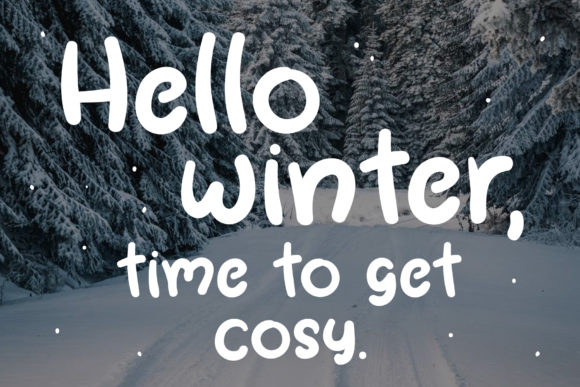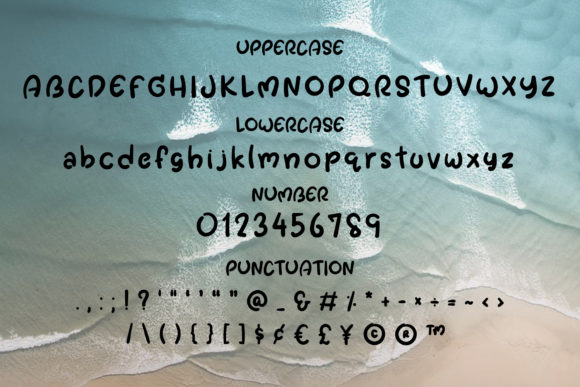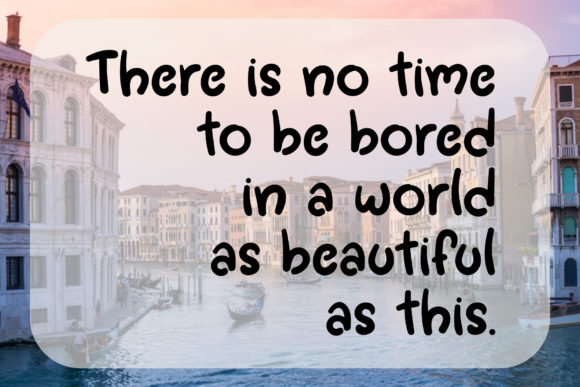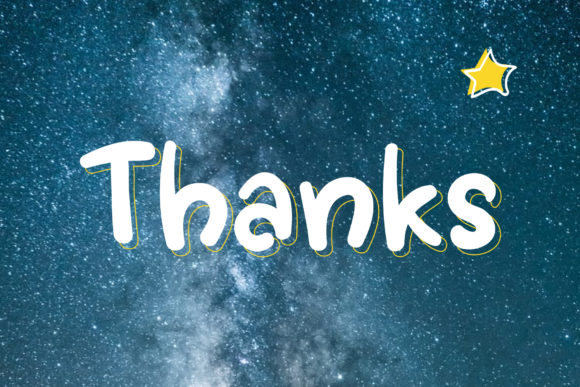
Introducing Briefcase Font: The Handwritten Charm for Your DIY Projects
Are you a designer, crafter, or DIY enthusiast looking for a unique and authentic font to elevate your projects? Look no further than Briefcase Font, a stunning handwritten font that is sure to capture hearts. This gorgeous font is the result of a beautiful pairing of a brush pen and pencil, giving it an endearing and genuine feel that will make your projects stand out.
The Story Behind Briefcase Font
Briefcase Font is more than just a font – it’s a work of art. Created with a brush pen and pencil, this font combines the fluidity of a brush pen with the precision of a pencil, resulting in a truly unique and captivating handwritten style. The font’s creator aimed to capture the essence of handwritten writing, and the result is a font that exudes warmth, personality, and character.
What Makes Briefcase Font So Special?
So, what sets Briefcase Font apart from other fonts? Here are a few features that make it a standout:
- Handwritten charm: Briefcase Font has a genuine, handwritten feel that is perfect for DIY projects, crafts, and designs that require a personal touch.
- Unique pairing of brush pen and pencil: The font’s creation process gives it a distinct texture and character that is both visually appealing and authentic.
- Versatile: Briefcase Font is suitable for a wide range of projects, from crafting and DIY to graphic design, branding, and more.
- Easily readable: Despite its handwritten nature, Briefcase Font is surprisingly easy to read, making it perfect for use in body text, headings, and titles.
How to Use Briefcase Font in Your DIY Projects
Now that you’re excited about Briefcase Font, let’s explore some ideas for using it in your DIY projects:
- Crafting: Use Briefcase Font to add a personal touch to your crafting projects, such as handmade cards, gift tags, and scrapbooking.
- DIY signage: Create eye-catching signs and posters for your home, business, or event using Briefcase Font.
- Branding and packaging: Add a touch of personality to your brand’s packaging and marketing materials with Briefcase Font.
- Journaling and scrapbooking: Use Briefcase Font to add journaling and titles to your scrapbooking and journaling projects.
Tips for Getting the Most Out of Briefcase Font
To make the most of Briefcase Font, here are a few tips:
- Experiment with colors: Briefcase Font looks great in a variety of colors, so don’t be afraid to experiment and find the perfect hue for your project.
- Mix and match: Combine Briefcase Font with other fonts and design elements to create a unique and visually appealing design.
- Pay attention to spacing: As with any handwritten font, pay attention to spacing and kerning to ensure that your text is easy to read and visually appealing.